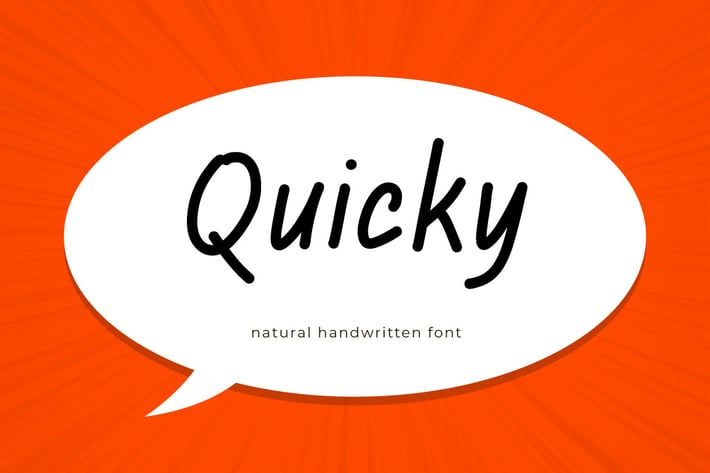
Quicky - Natural handwritten font
Hello! Quicky is a natural handwritten font.
Quicky can be used in any works such as comic book, poster, school, flyer, book title, advertisement, social media content, logo and many more.